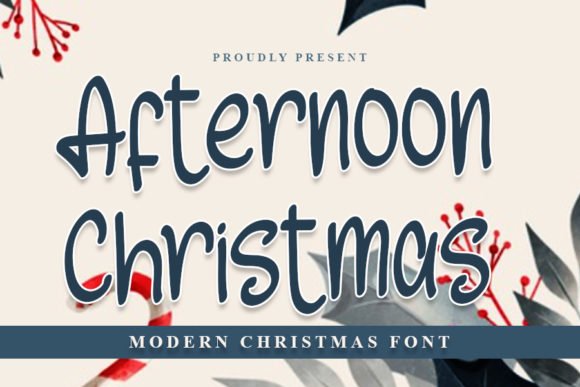
Introduction to Afternoon Christmas Font
Afternoon Christmas is a modern handwritten font.
This font is suitable for a wide variety of projects such as making flyers, mockups, logos, banners and more .
Why Choose Afternoon Christmas Font?